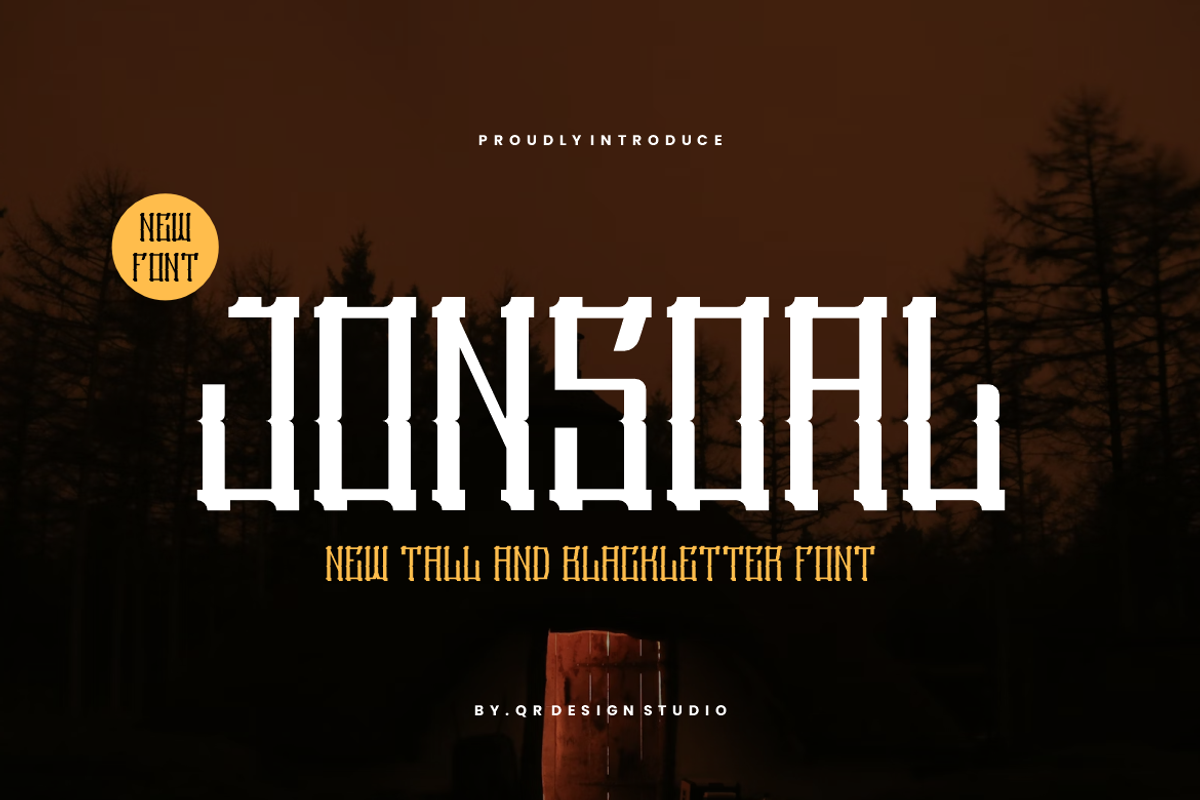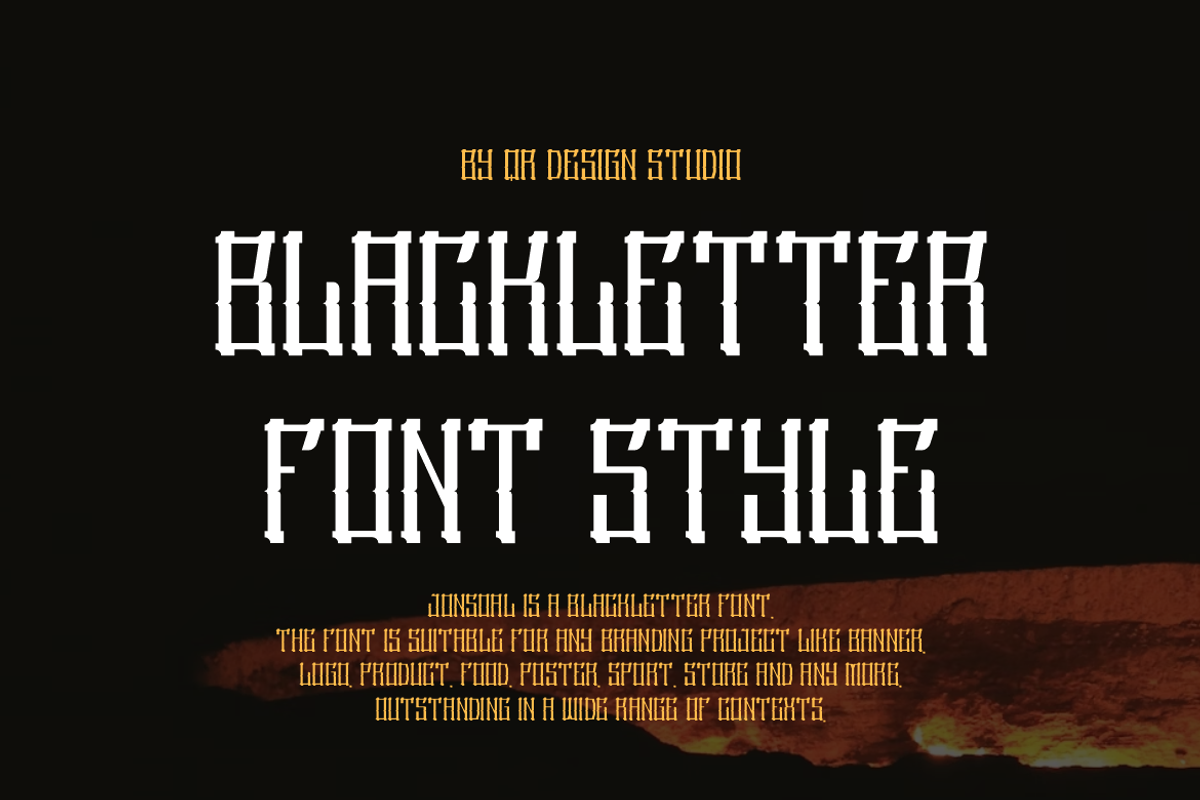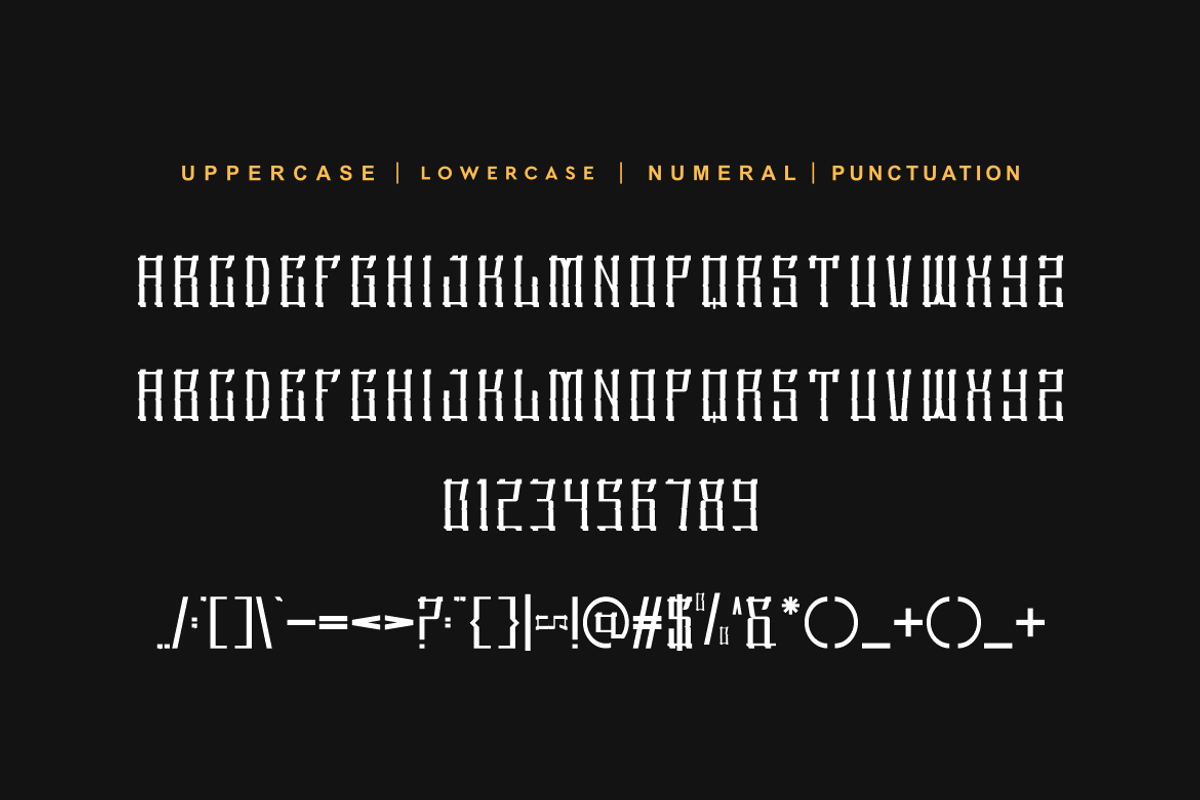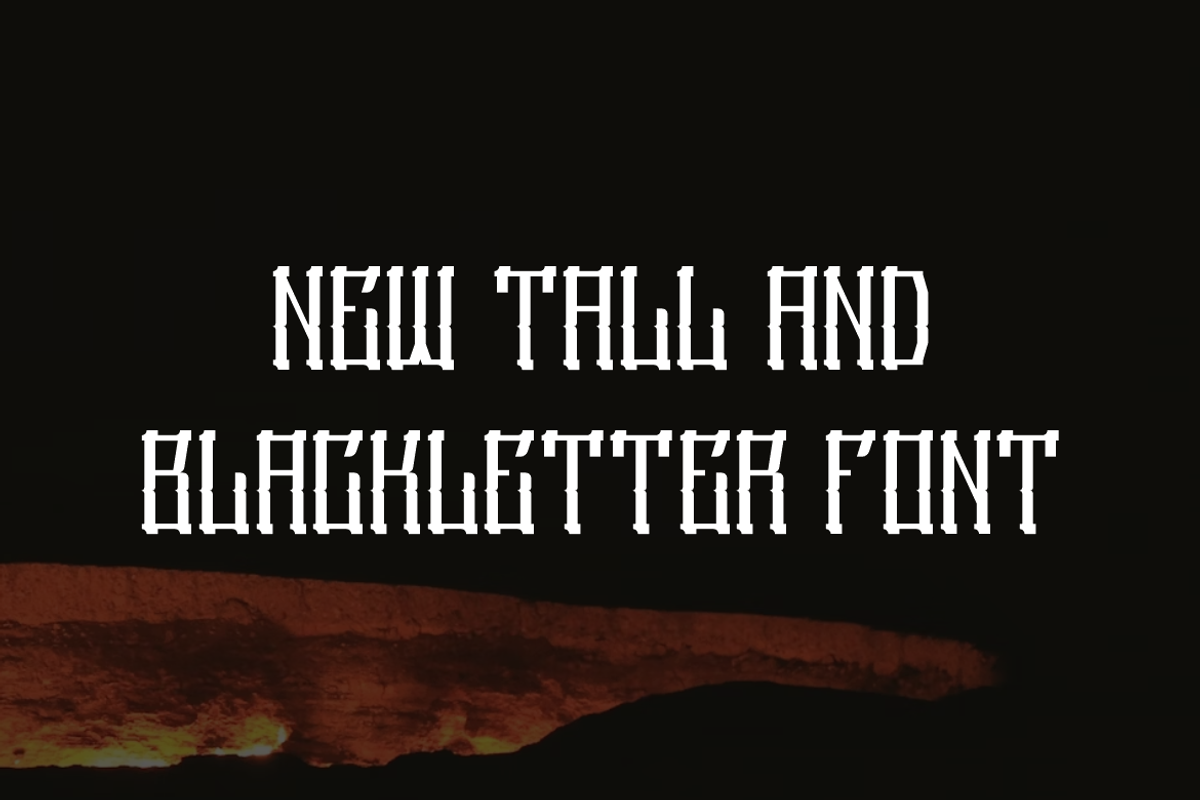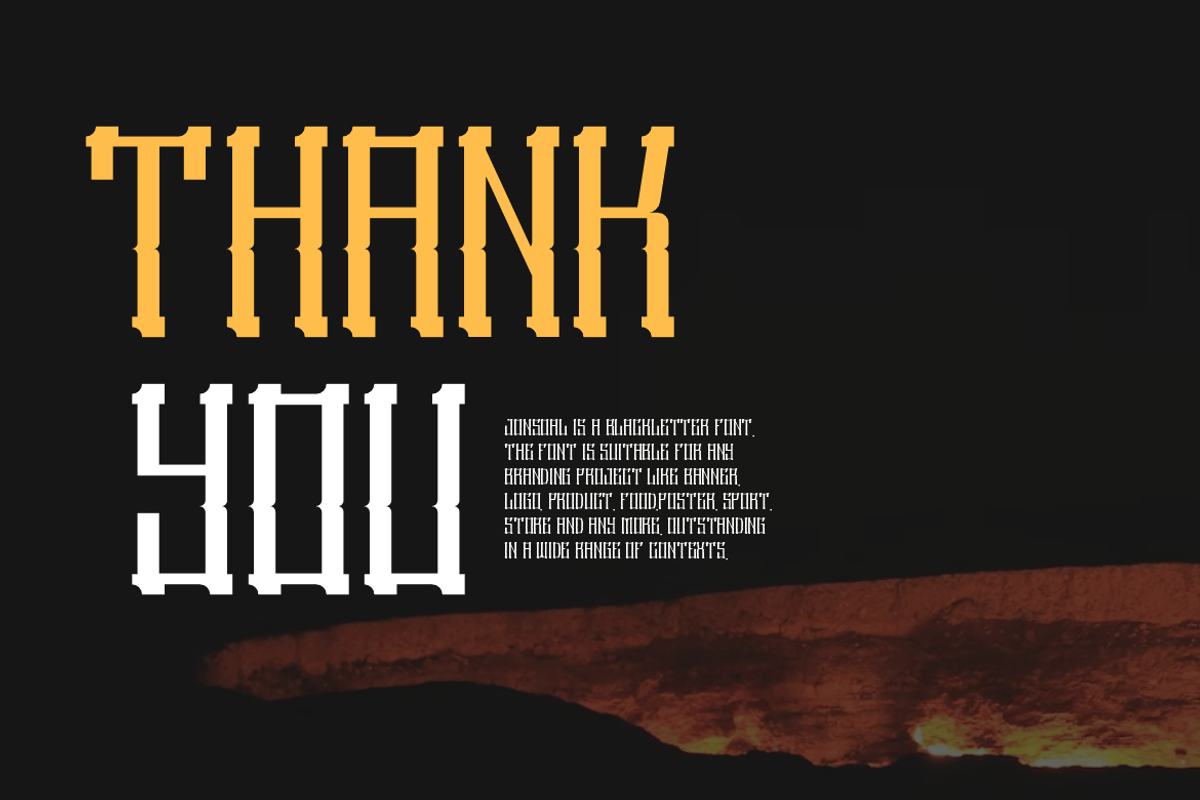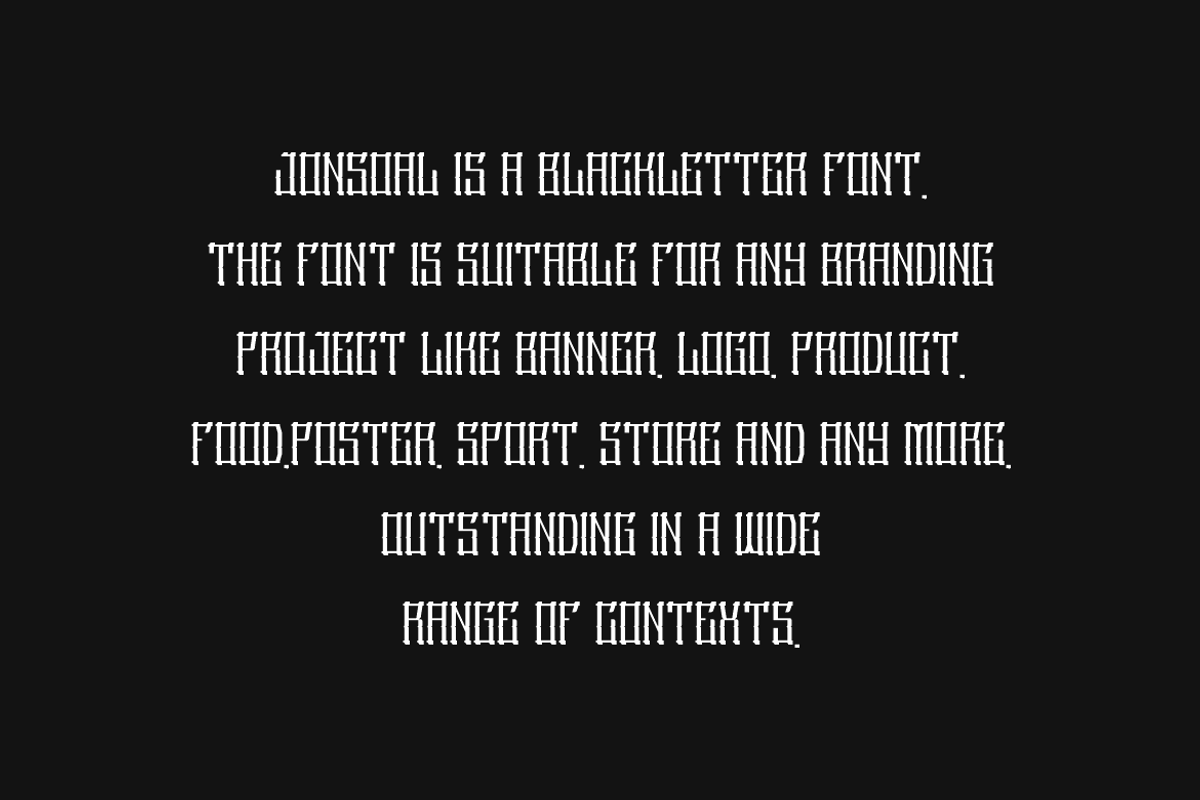
Jonsoal - Tall & Blackletter Font
Jonsoal Font is a blackletter and authentic display font. The font is suitable for any branding project like poster, logo, sport, and many more. Outstanding in a wide range of contexts.